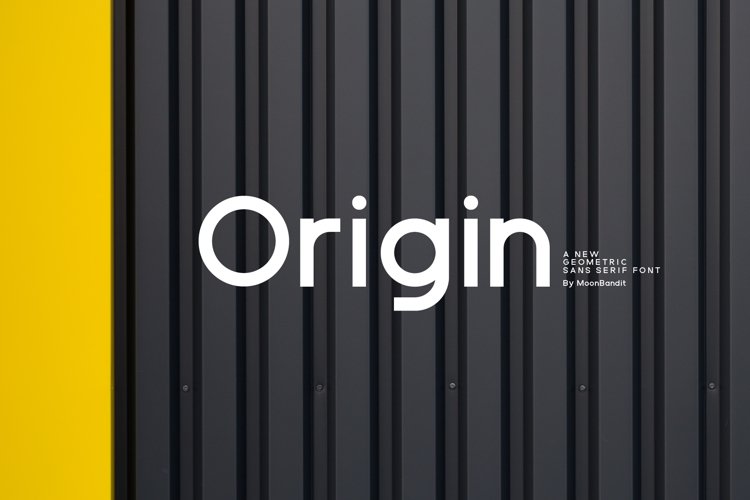
ORIGIN - Modern geometric sans serif
MBF Origin
A fresh new geometric font with a modern vibe, perfect geometry shape, same width line all around, build to be versatile, clean and bold. Perfect for any project, logo, headline, and many others.